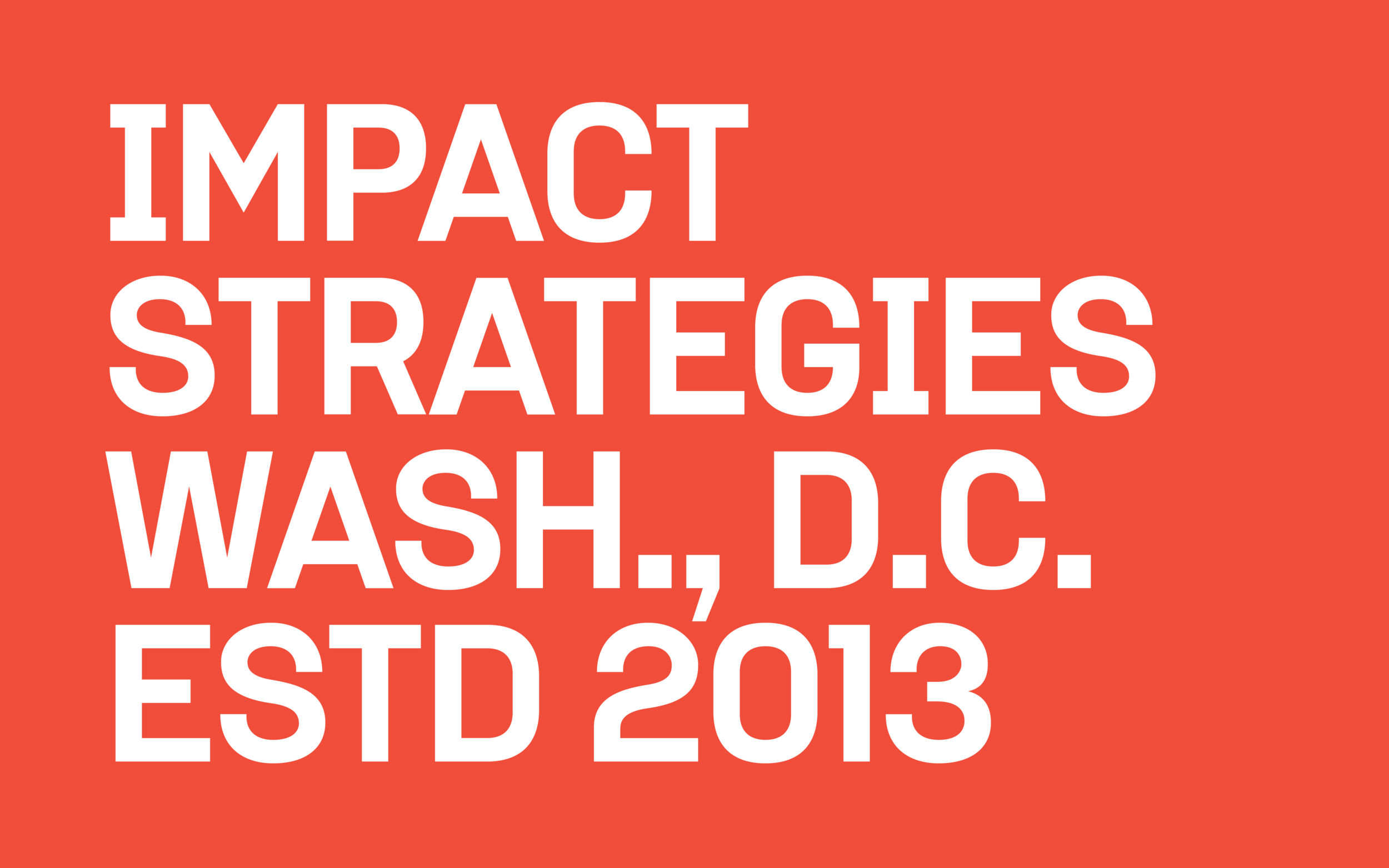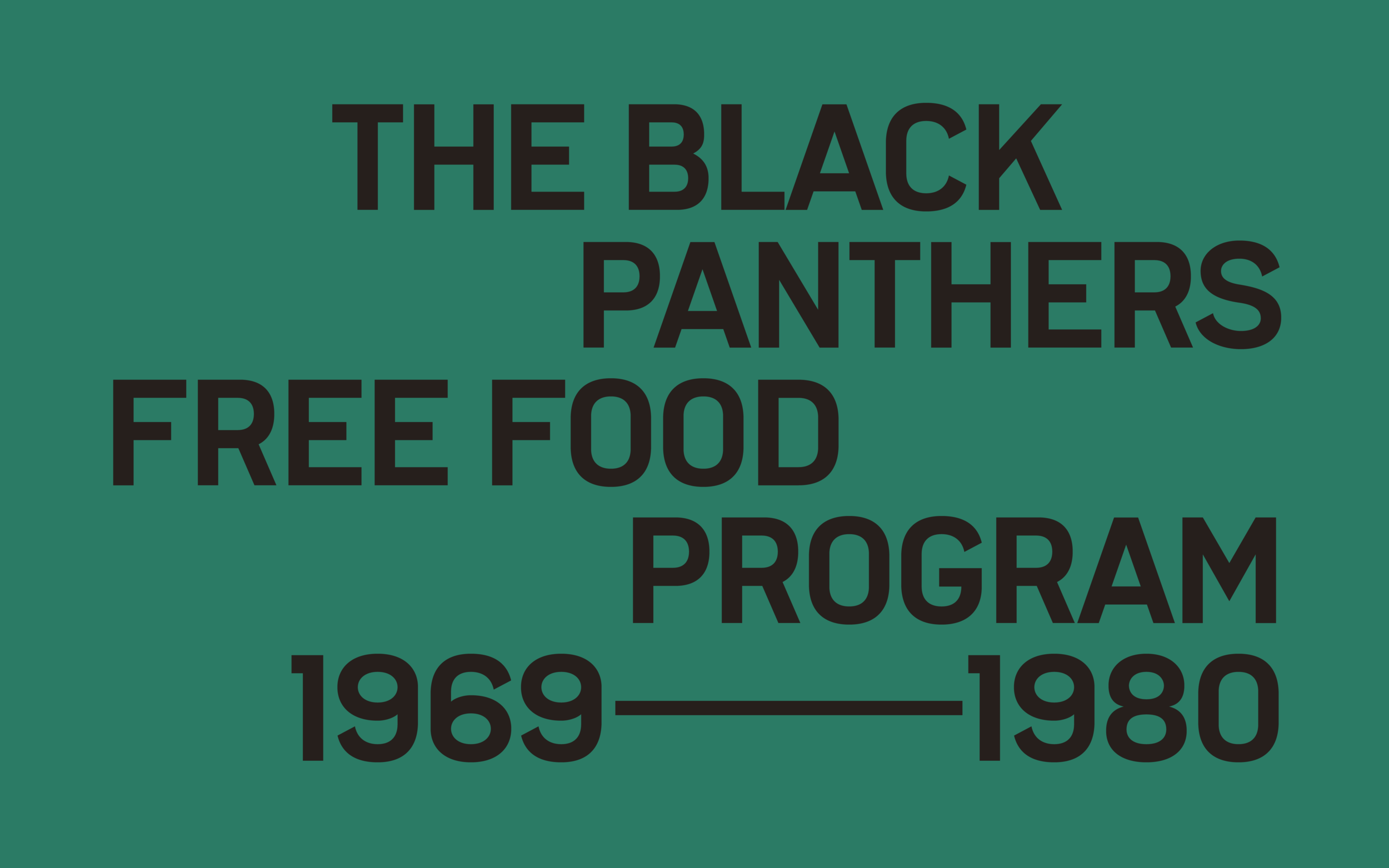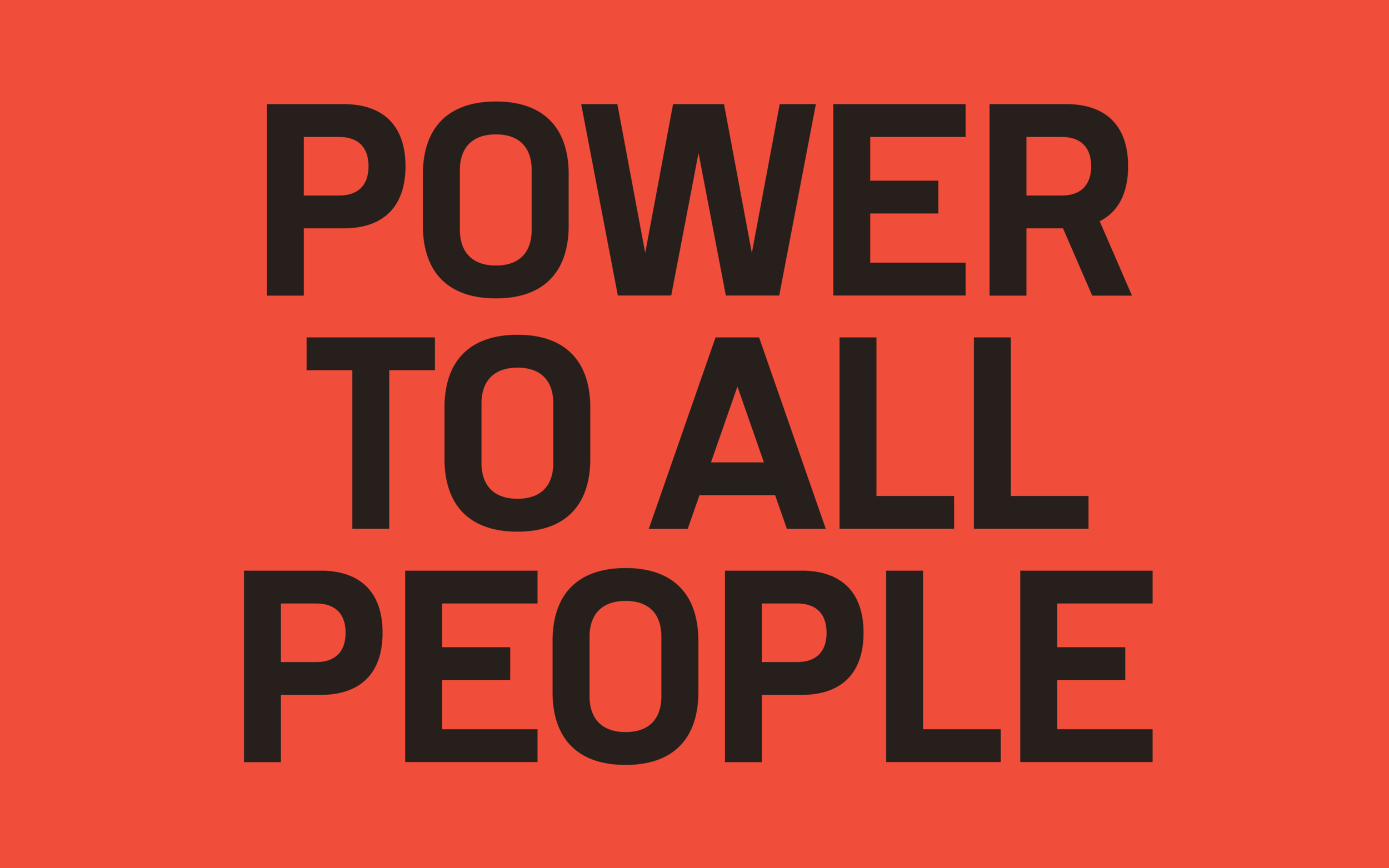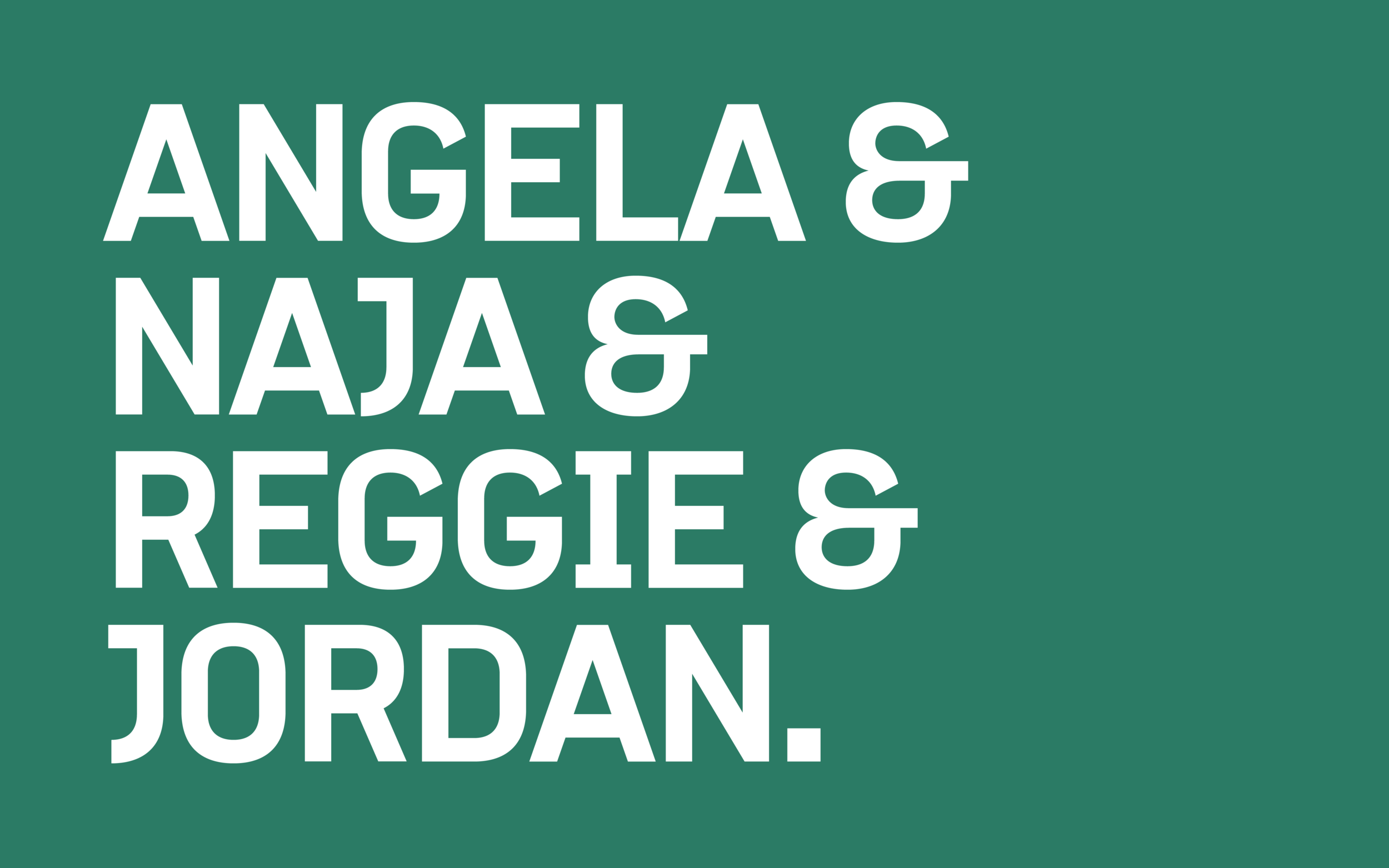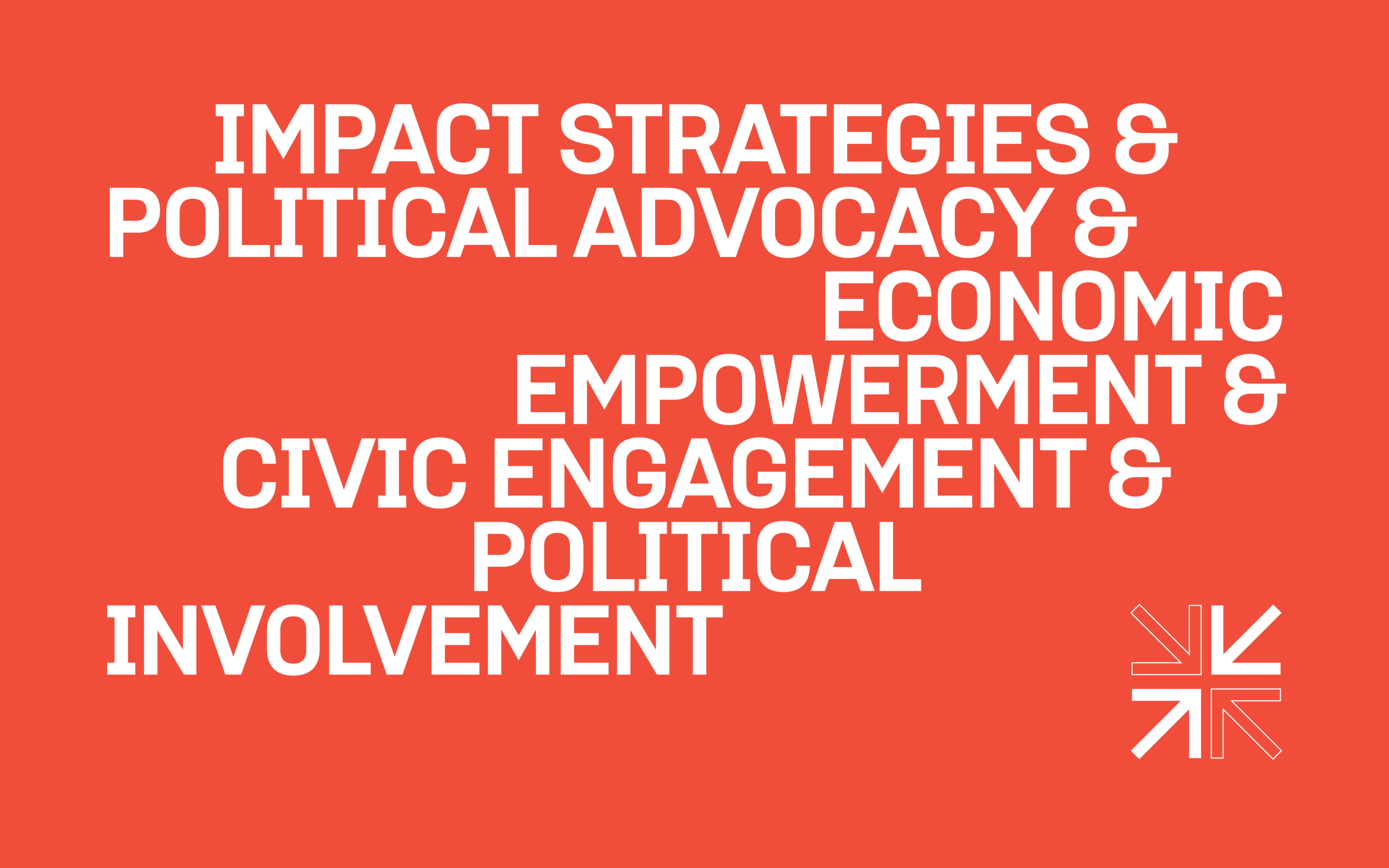
IMPACT Strategies is a Washington D.C.-based political advocacy firm founded by attorney, political analyst, entrepreneur, and economic parity advocate Angela Rye. The organization seeks to encourage young professionals in three core areas: economic empowerment, civic engagement, and political involvement. The organization has quickly become a powerful voice and advocate for today’s young professionals of color nationwide. Under Angela’s leadership, IMPACT has formed critical partnerships with the National Bar Association, Congressional Black Caucus Foundation, National Urban League, Rainbow PUSH, Congressional Black Caucus Political Education and Leadership Institute, Black Leadership Forum, and many others.
IMPACT Strategies’ current identity was developed upon its founding in 2013—a point in time at which our political climate was quite different from the one we’re experiencing today. The election of Donald Trump has greatly shifted IMPACT’s focus from more traditional political advocacy work to teaching civics, teaching clients about social justice and economic parity, and taking on significantly more diversity and inclusion work. As a result, it’s imperative that their new brand identity reflects this shift away from stereotypical D.C. firm towards a powerful, unapologetically black, professional yet edgy advocate for a better tomorrow.
To ensure that the firm had an identity that was unapologetically black and powerful, Vocal created a bespoke typeface inspired by the remnants of the People’s Free Food Program.
When Black Panther Party founders Huey P. Newton and Bobby Seale founded the party in 1966, their goal was to end police brutality in Oakland. But a faction of the Civil Rights Movement led by SNCC member Stokeley Carmichael began calling for the uplift and self-determination of African-Americans, and soon black power was part of their platform. *
With this new concept in mind, the Black Panthers started the People’s Free Food Program. This program provided free food to black and other oppressed people. The intent of the Free Food Program was to supplement the groceries of black and poor people until economic conditions allowed them to purchase good food at reasonable prices. The Free Food Program provided two basic services to the community: 1. An ongoing supply of food to meet their daily needs. 2. Periodic mass distributions of food to reach a larger segment of the community than could be serviced from the ongoing supply. The community was provided with bags of fresh food containing items such as eggs, canned fruits and vegetables, chickens, milk, potatoes, rice, bread, cereal, and so forth. A minimum of a week’s supply of food was included in each bag. *
The final typeface, aptly named “Impactful,” is inspired by the grocery bags of the People’s Free Food Program.
While they only needed an all caps headline typeface, I thought it would be important for the typeface to have some versatility, should they need it. Characters such as ‘C,’ ‘G,’ 'S,’ and most numerals allow the graphic designer to switch between flat and angled terminals, allowing for two different tones.